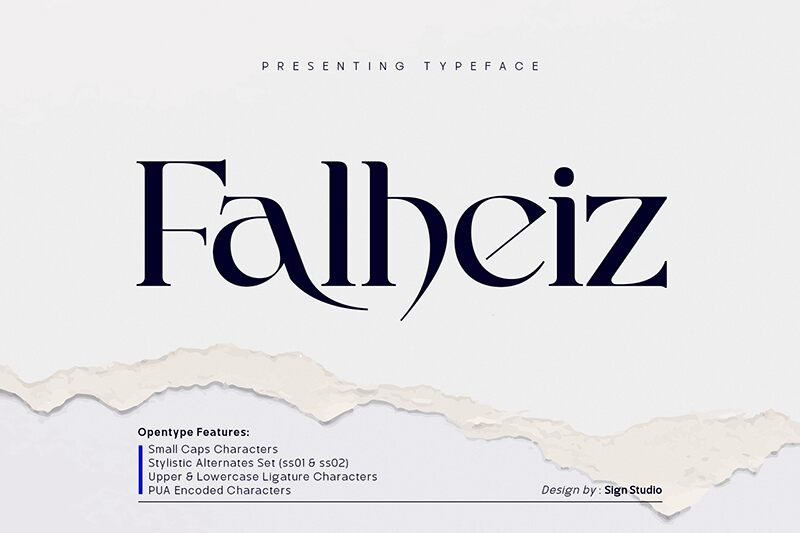
Falheiz, a masterfully crafted serif font by Sign Studio, captivates with its timeless elegance and refined details. Its delicate strokes and precise curves exude sophistication, making it perfect for luxurious branding projects. The semi-bold typeface ensures readability and delivers a touch of modernity to editorial designs such as magazines and newspapers. With its versatile font width options, from narrow to wide, Falheiz effortlessly complements corporate identities, providing a professional edge for logos and business cards. Whether designing high-end packaging or creating impactful headlines, Falheiz is the epitome of beauty and versatility in typography.
Falheiz
Falheiz Typeface by Sign Studio